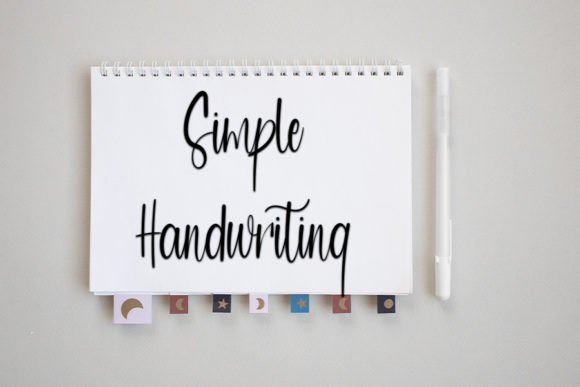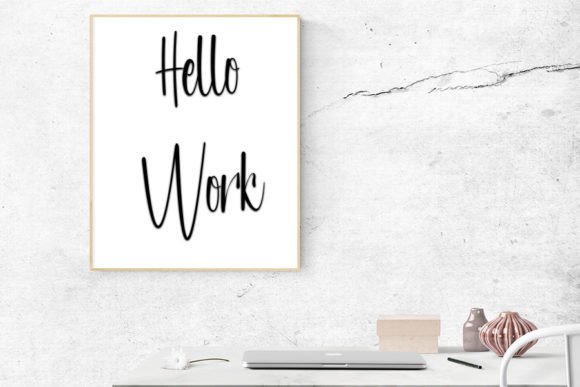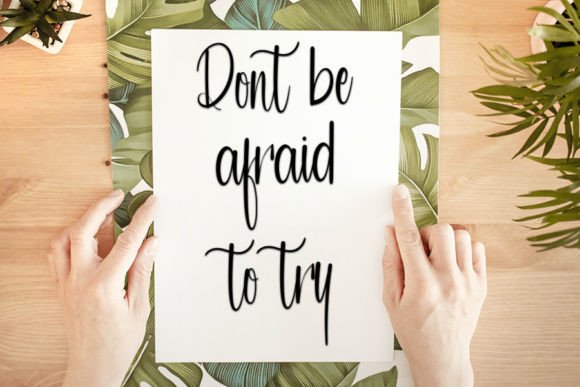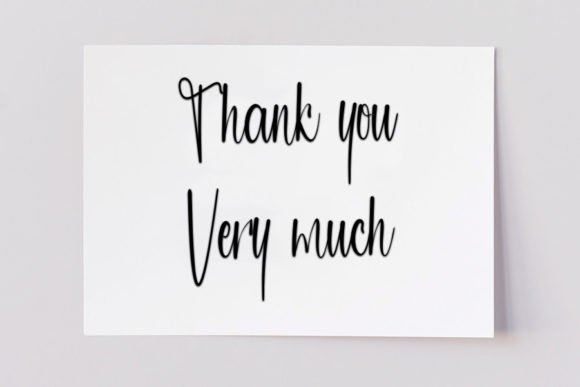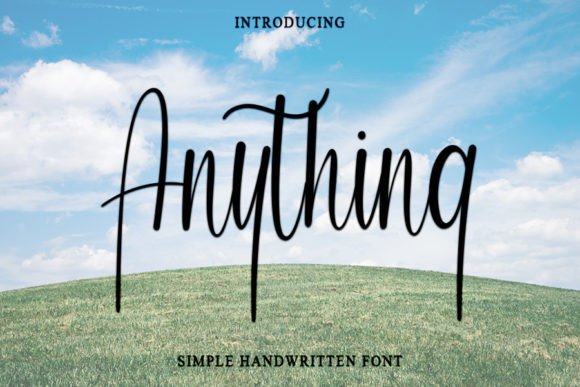
Discover the Elegance of Anything Font: Elevate Your Designs with a Timeless Handwritten Style
Are you on the hunt for the perfect font to add a touch of elegance and sophistication to your designs? Look no further than Anything Font, a beautifully crafted handwritten font that exudes a sense of refinement and poise. With its incredibly distinct and timeless style, Anything Font is sure to capture your heart and become your go-to choice for creating spectacular designs.
The Charm of Anything Font
Anything Font is described as a neat and beautiful handwritten font, and for good reason. Its elegant touch is palpable, making it perfect for a wide range of projects, from wedding invitations and branding materials to digital content and craft projects. The font’s unique charm lies in its ability to convey a sense of warmth and personality, making it an excellent choice for designers and crafters looking to add a human touch to their work.
What Makes Anything Font So Special?
So, what sets Anything Font apart from other fonts on the market? Here are just a few reasons why this font has become a favorite among designers and crafters:
- Distinctive Style: Anything Font boasts an incredibly distinct style that is both elegant and sophisticated. Its unique letterforms and flowing lines make it a standout choice for any project.
- Timeless Appeal: Unlike trendy fonts that quickly go out of style, Anything Font has a timeless quality that ensures it will remain relevant for years to come.
- Versatility: Whether you’re working on a digital project or a print design, Anything Font is versatile enough to adapt to any style or format.
- Elegant Touch: The font’s elegant touch adds a level of sophistication to any design, making it perfect for high-end branding, luxury packaging, and more.
How to Use Anything Font in Your Designs
Now that you’re familiar with the charm of Anything Font, let’s explore some ways you can incorporate it into your designs:
Wedding Invitations and Stationery
Anything Font is an excellent choice for wedding invitations, save-the-dates, and other stationery. Its elegant touch and sophisticated style make it perfect for formal events and celebrations.
Branding and Packaging
Take your branding to the next level with Anything Font. Use it to create stunning logos, business cards, and packaging that exudes luxury and sophistication.
Digital Content
Anything Font is also well-suited for digital content, including blog posts, social media graphics, and email newsletters. Add a touch of elegance to your online presence and make your content stand out.
Craft Projects
Crafters will love using Anything Font for a variety of projects, from handmade cards and gift tags to scrapbooking and journaling.
Tips for Getting the Most Out of Anything Font
To ensure you get the most out of Anything Font, here are a few tips to keep in mind:
- Experiment with Sizes: Don’t be afraid to experiment with different font sizes to find the perfect balance for your design.
- Pair it with Other Fonts: Try pairing Anything Font with other fonts to create a unique and visually appealing combination.
- Play with Colors: Anything Font looks stunning in a variety of colors, so don’t be afraid to get creative and try out different hues.
In conclusion, Anything Font is a beautiful and elegant handwritten font that is sure to capture your heart. With its incredibly distinct and timeless style, it’s the perfect choice for designers and crafters looking to add a touch of sophistication to their work. Whether you’re working on a wedding invitation, branding project, or craft project, Anything Font is sure to help you create spectacular designs that stand out from the crowd.